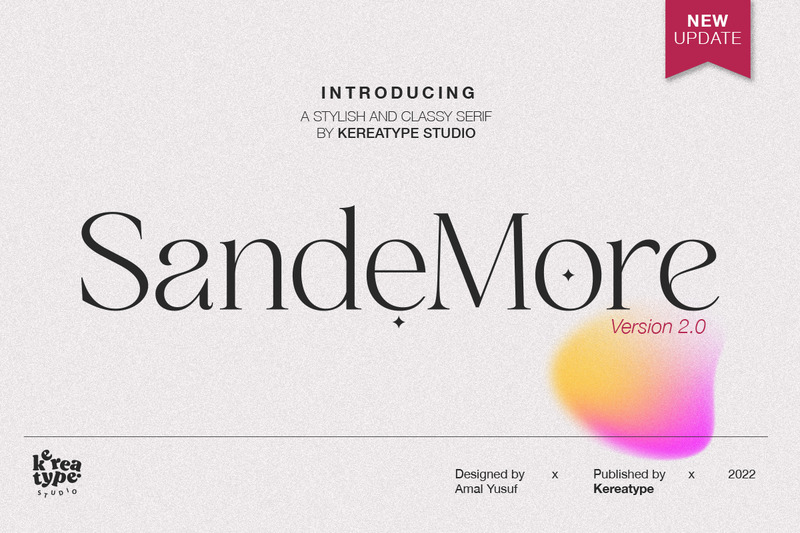
San De More Font
Designed by Kereatype Studio
About San De More
Infused with the hype of summer themes that inspire us to create a product aiding you in choosing fonts for your creations. As seen in the preview above, it showcases how the fonts can seamlessly integrate into your design.
Created in 5 weights with italic styles, San de More offers versatility, ensuring you find the perfect fit for your creative designs. Mix and match without worrying about design clashes.